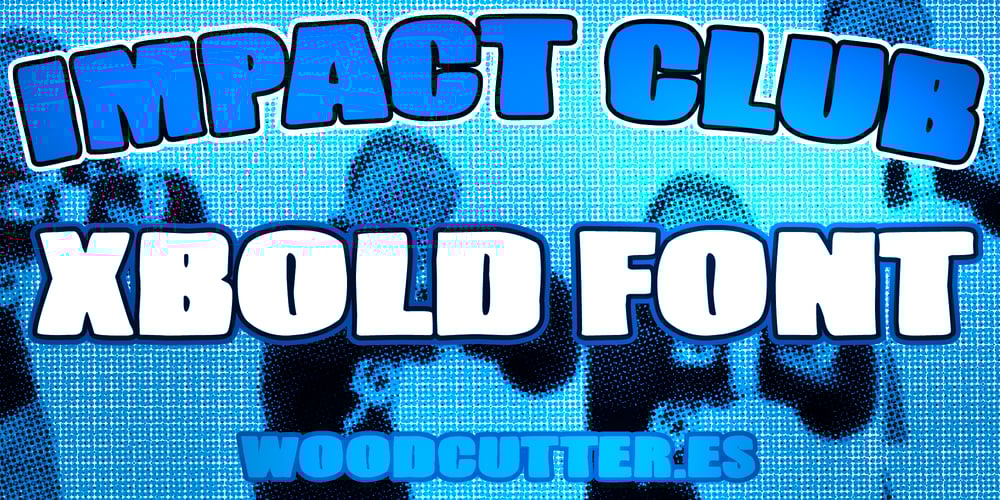
Impact Club Font Family was designed by Jordi Manero and published by Woodcutter. Impact Club contains 1 styles and family package options. “Impact Club” is an uppercase typeface with a solid, bold, and striking design. Each letter features slight imperfections that give it an organic and authentic touch, standing out for its robust and powerful appearance. Its impactful style makes it perfect for eye-catching headlines, bold logos, or posters that need to convey strength and presence. Despite its thickness, it maintains excellent readability, making it a versatile choice for graphic projects aiming for a strong and memorable design. With “Impact Club,” every word seems to shout strength and confidence, ideal for grabbing attention instantly.